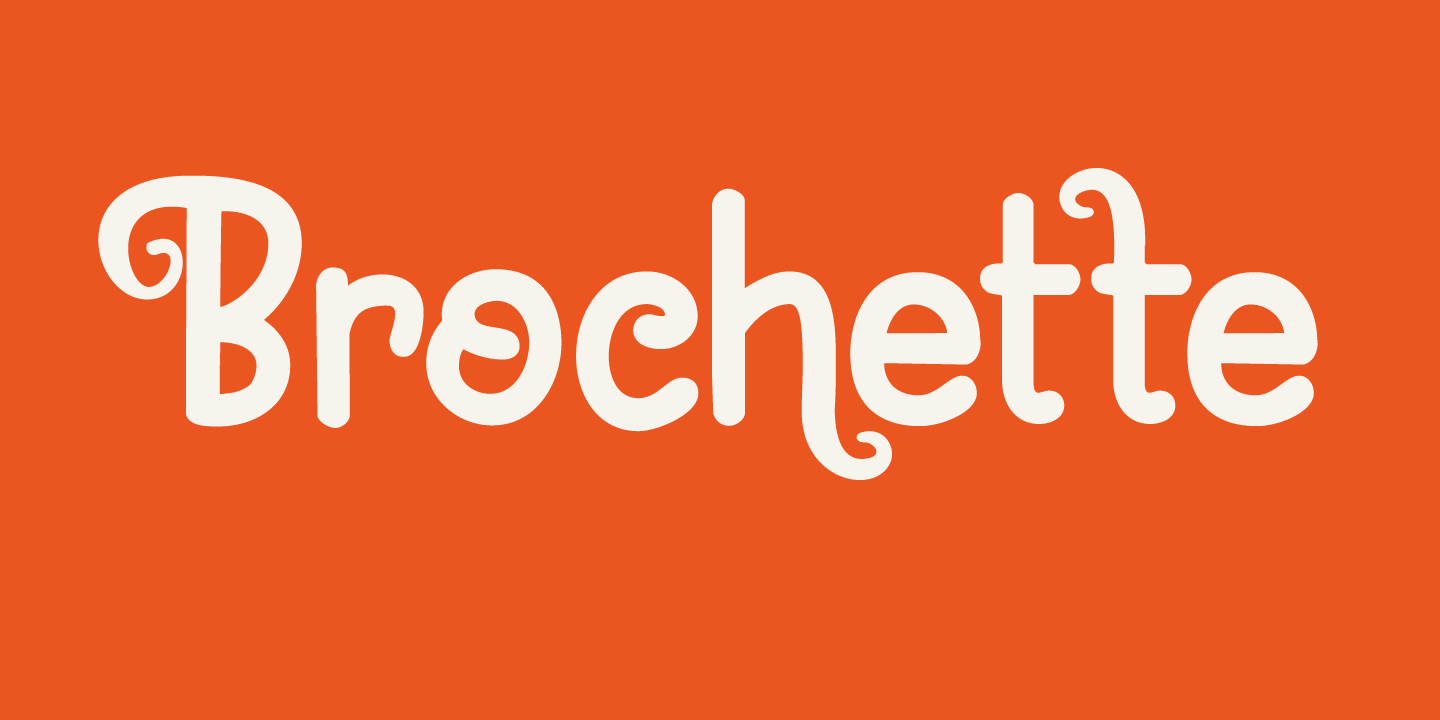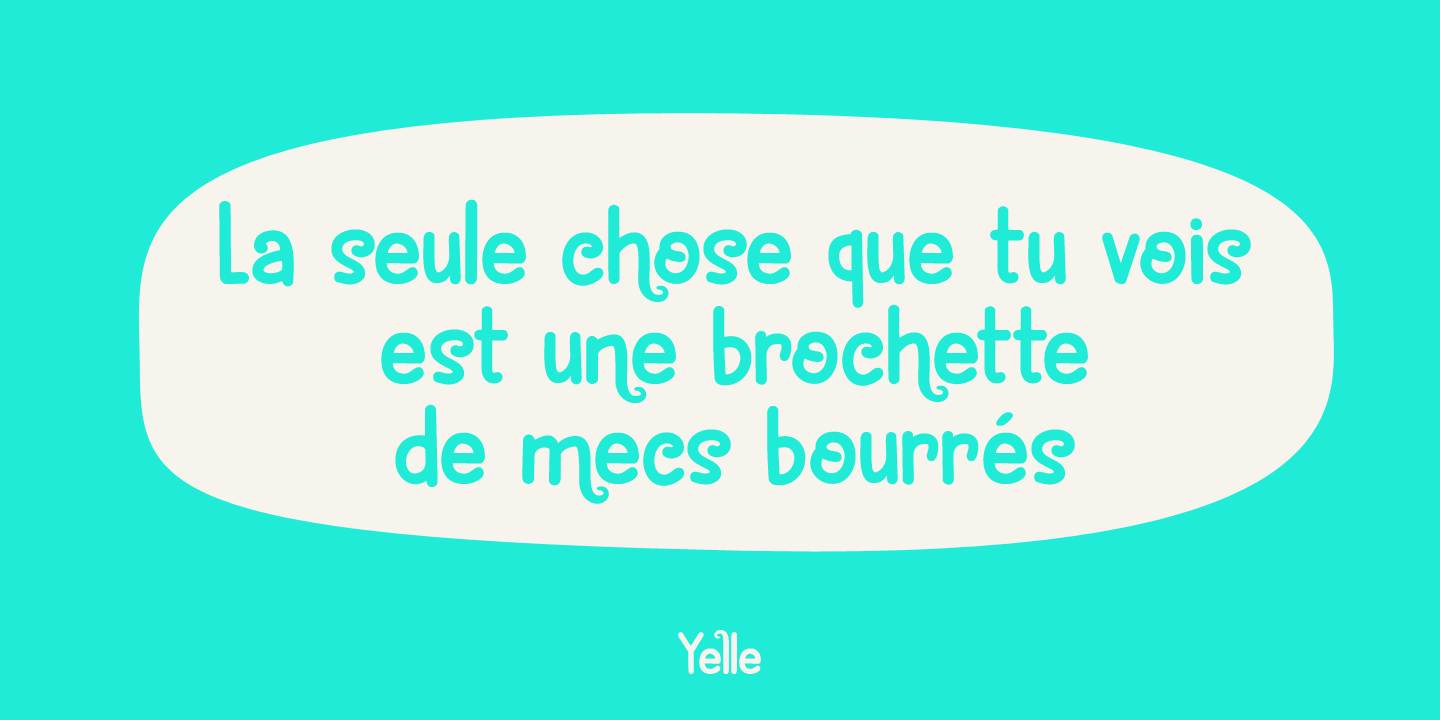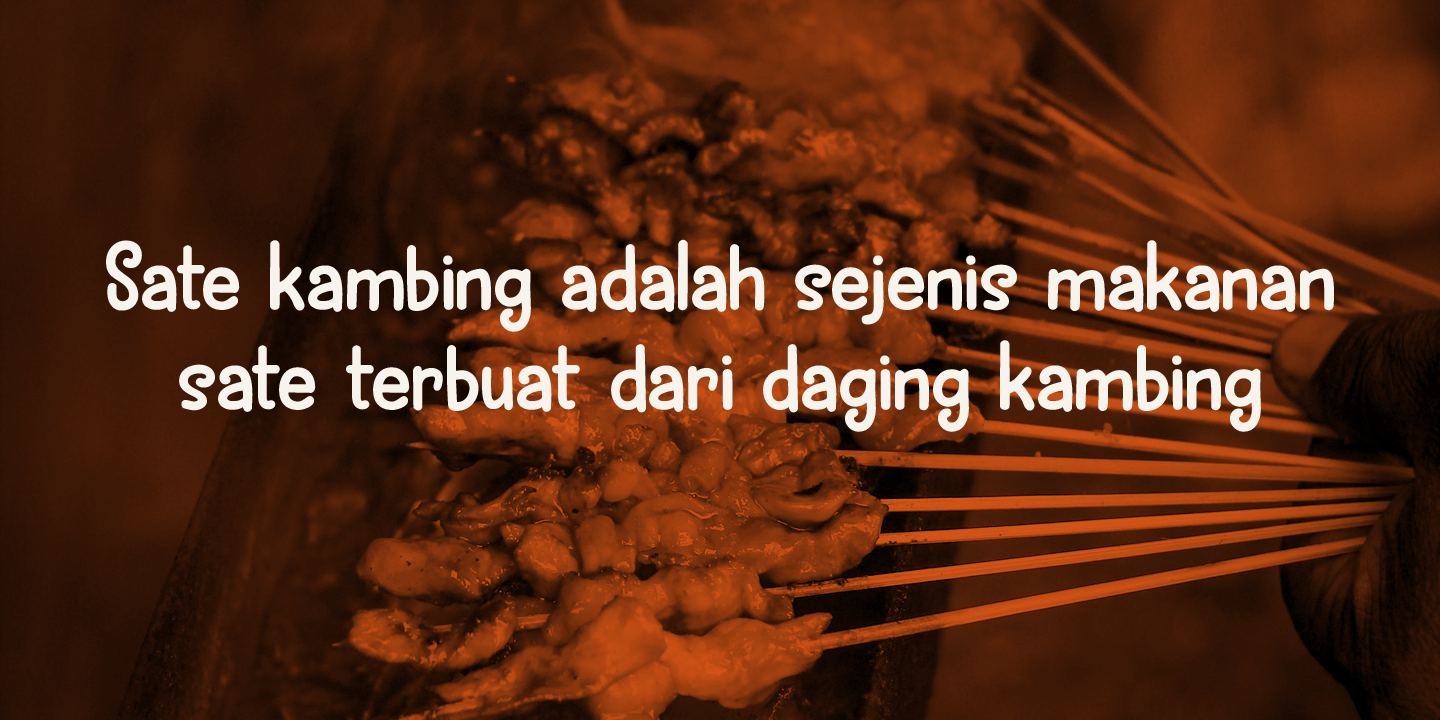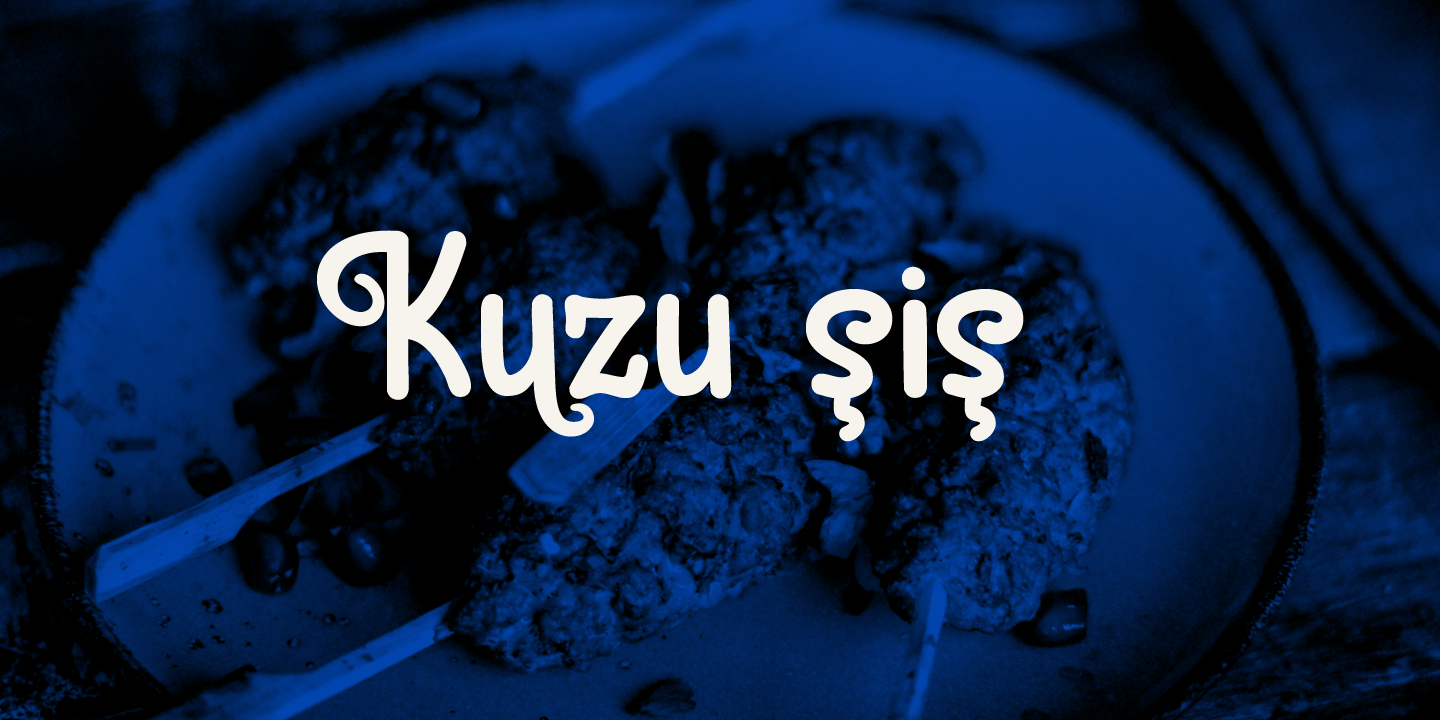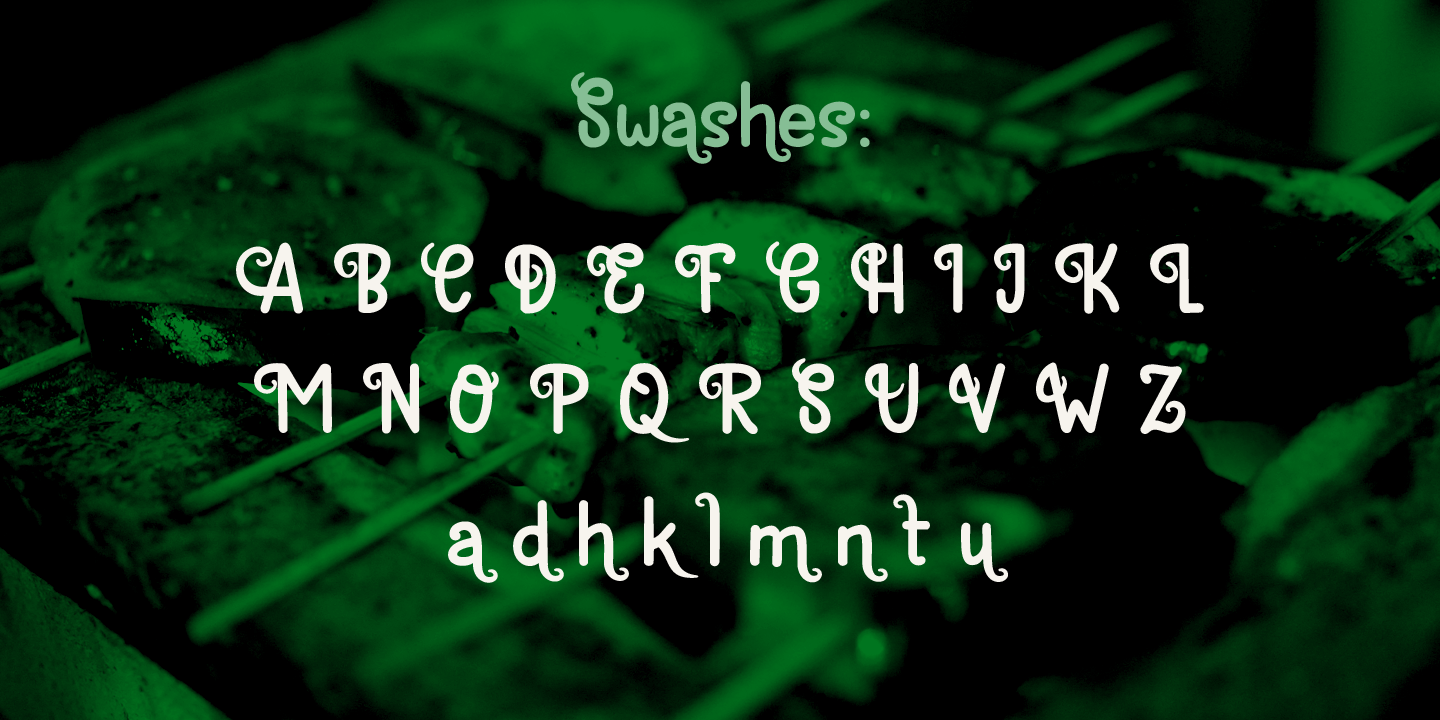
Brochette
A ?Brochette? in French is a skewer. I used to be a tour guide and some years ago, I guided a couple of tours in Mali. Every night at dinner we had the choice of a ?Brochette de Capitaine? (grilled Nile perch on a skewer) or a ?Brochette de B?uf? (grilled beef on a skewer). Of course, every night the Brochette came with French fries and ?petits pois? (peas). It was really nice, but after 4 months of eating Brochettes, I longed for something different!
Brochette is a very nice rounded font. It comes with curls, swirls and swashes.